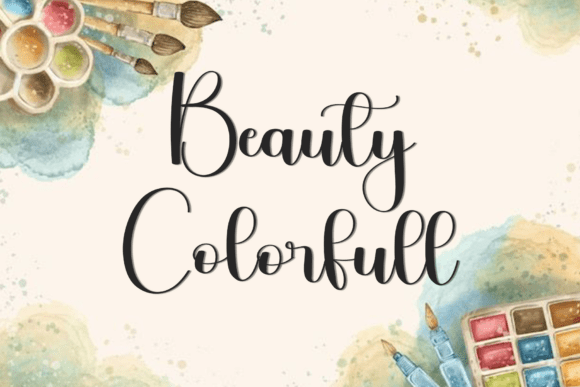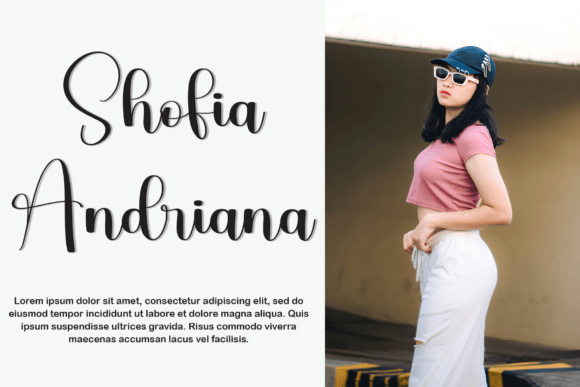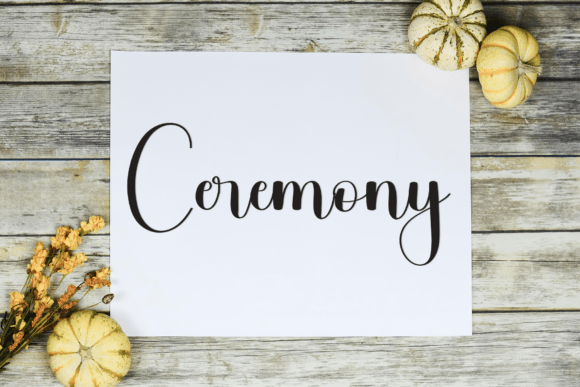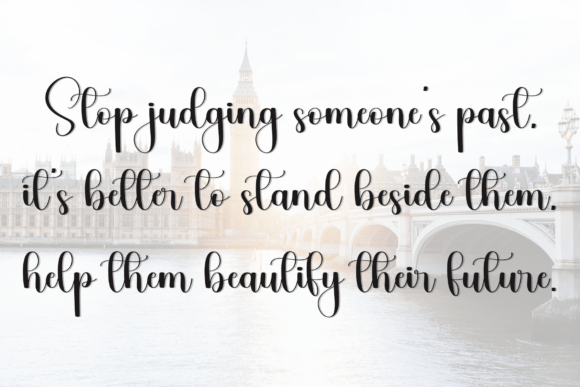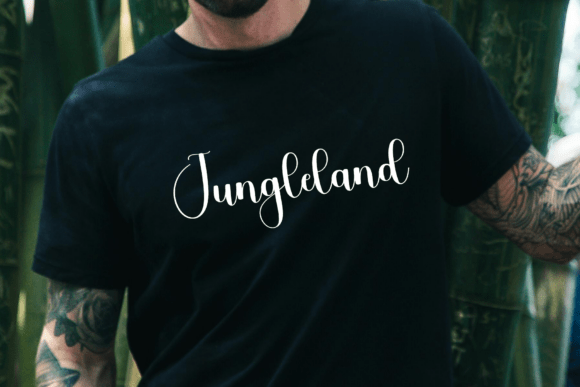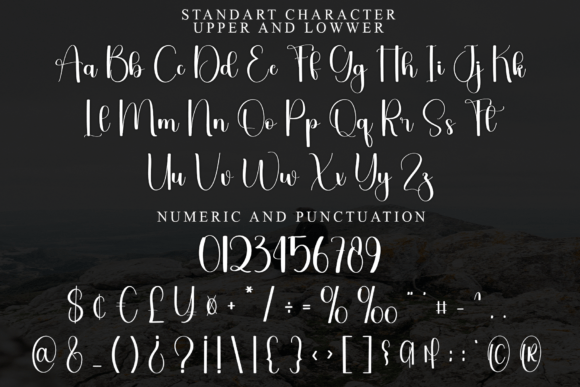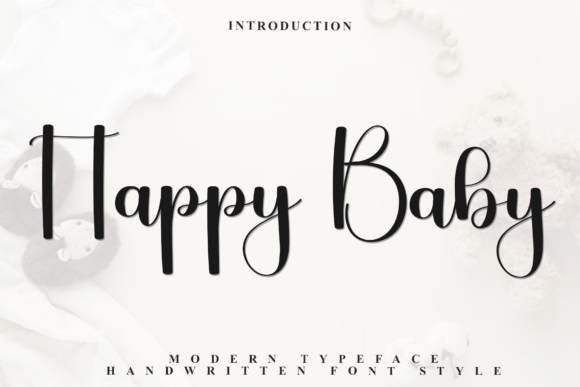
Introducing Happy Baby Font: The Perfect Addition to Your Design Arsenal
Are you tired of using the same old fonts in your design projects? Look no further than Happy Baby Font, a beautiful and eye-catching typeface that is sure to take your creations to the next level. With its soft, unique touch and distinctive strokes, Happy Baby Font is the perfect choice for designers, crafters, and artists looking to add a special something to their work.
A Versatile Font for a Wide Range of Applications
One of the best things about Happy Baby Font is its versatility. Whether you’re working on a design project, crafting a handmade card, or creating a digital masterpiece, this font is sure to shine. Its natural, effortless style makes it perfect for a wide range of products, from children’s books and educational materials to branding and advertising campaigns.
Distinctive Strokes and Characters
So what sets Happy Baby Font apart from other fonts on the market? For starters, its distinctive strokes give it a special character that is both meaningful and visually appealing. With a range of characters to choose from, you’ll be able to create unique and engaging designs that capture the attention of your audience. Whether you’re looking to add a touch of whimsy or a dash of sophistication, Happy Baby Font has got you covered.
Compatibility and Ease of Use
Happy Baby Font is a dream come true for designers and crafters. With its unique style and versatility, it’s the perfect choice for anyone looking to add a personal touch to their work. Whether you’re creating digital art, crafting handmade cards, or designing branding materials, this font is sure to inspire your creativity and take your designs to new heights.
Enhance Your Designs with Happy Baby Font
So why settle for boring, generic fonts when you can add a touch of magic to your designs with Happy Baby Font? With its soft, unique touch and distinctive strokes, this font is sure to make your designs stand out from the crowd. Whether you’re working on a personal project or a client brief, Happy Baby Font is the perfect choice for anyone looking to create engaging, memorable designs.
Key Features of Happy Baby Font
- Beautiful and eye-catching font with a soft, unique touch
- Distinctive strokes give it a special character, making it meaningful and versatile
- Perfect for design projects, crafts, and other creative works
- Ideal for a wide range of products, from children’s books to branding and advertising campaigns
Get Ready to Fall in Love with Happy Baby Font
In conclusion, Happy Baby Font is a beautiful and versatile typeface that is perfect for designers, crafters, and artists looking to add a special something to their work. With its distinctive strokes, range of characters, and compatibility with a wide range of applications, this font is sure to shine in any design project. Whether you’re working on a personal project or a client brief, Happy Baby Font is the perfect choice for anyone looking to create engaging, memorable designs.